Typography is no longer limited to readability and structure. In today’s creative landscape, designers are using experimental fonts to challenge conventions, create emotional impact, and help brands stand out in increasingly crowded markets.
Experimental font design pushes beyond traditional typography rules. It embraces unusual letterforms, unexpected proportions, abstract shapes, futuristic influences, and creative distortions. These fonts transform text into visual experiences, making them ideal for modern branding, posters, packaging, editorial design, and digital campaigns.
As brands compete for attention across social media, websites, and physical products, typography has become a powerful tool for differentiation. Experimental fonts help businesses appear innovative, creative, and memorable while giving designers greater freedom of expression. Recent typography trends also show growing demand for expressive typefaces that prioritize personality over strict convention.
In this guide, we’ll explore 10 of the best experimental fonts available from PutraCetol, including one free font that can help elevate your next creative project.
Initial Suggestion
Before selecting an experimental font, consider the role typography will play in your project.
Define Your Brand Personality
Ask yourself:
- Do you want to look futuristic?
- Artistic?
- Innovative?
- Premium?
- Bold and disruptive?
The answers will help determine which experimental style fits best.
Prioritize Recognition
Experimental doesn’t mean unreadable.
The best experimental fonts remain recognizable while introducing unique visual characteristics.
Match the Font to the Project
Different styles work for different industries.
For example:
- Tech startups often benefit from futuristic experimental fonts.
- Fashion brands frequently use abstract typography.
- Creative agencies embrace unconventional display fonts.
- Music and entertainment projects often favor highly expressive lettering.
Create Consistency
Use your chosen experimental font consistently across:
- Logos
- Packaging
- Social media
- Advertising
- Websites
- Editorial materials
This strengthens brand recognition.
1. Vexorium Modern Experimental Font
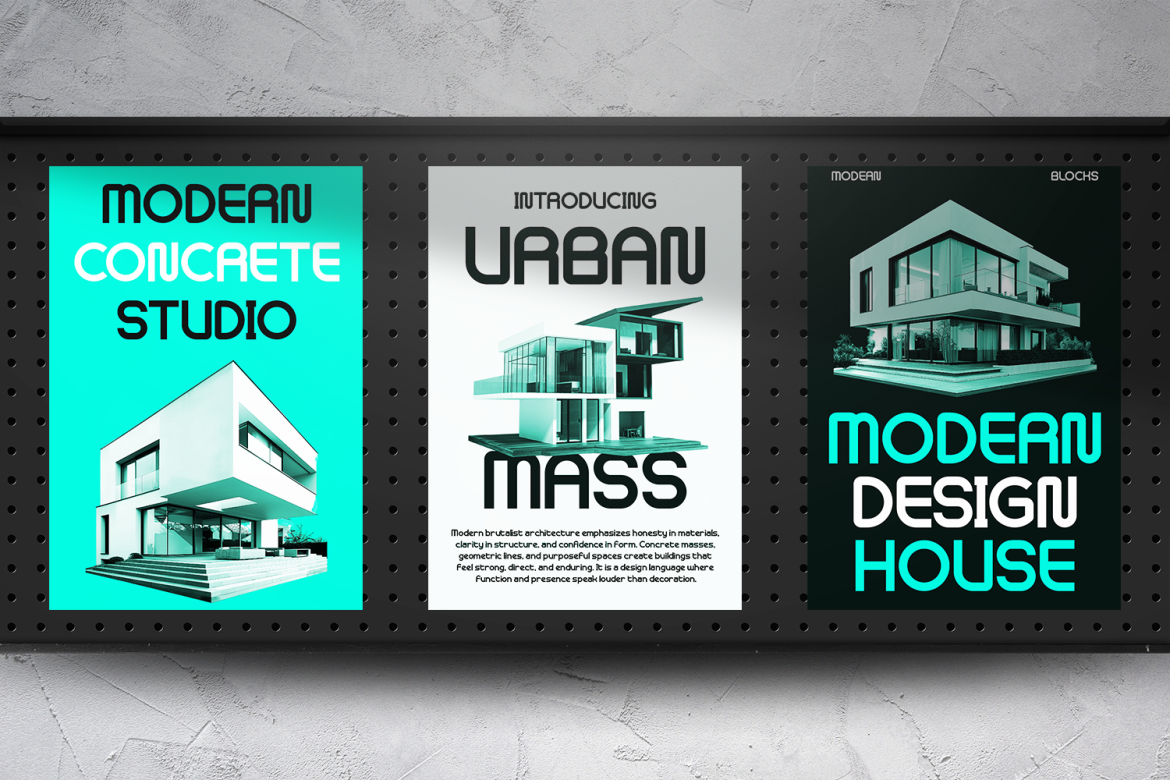
A modern display font designed for brands that want innovation and originality.
Pros
- Distinctive letterforms
- Modern aesthetic
- Strong branding potential
- Excellent visual presence
- Startup branding
- Creative agencies
- Technology companies
- Modern packaging
- Digital campaigns
Vexorium embraces contemporary experimental design while maintaining readability and professional versatility.
2. Wavetra Unique Experimental Font
A fluid and expressive typeface built around smooth curves and creative forms.
Pros
- Strong visual rhythm
- Balanced readability
- Unique character shapes
- Modern appearance
- Branding systems
- Packaging design
- Posters
- Editorial layouts
- Lifestyle brands
Wavetra demonstrates how experimental typography can remain approachable while delivering strong creative impact.
3. Velant Unique Experimental Font (Free)
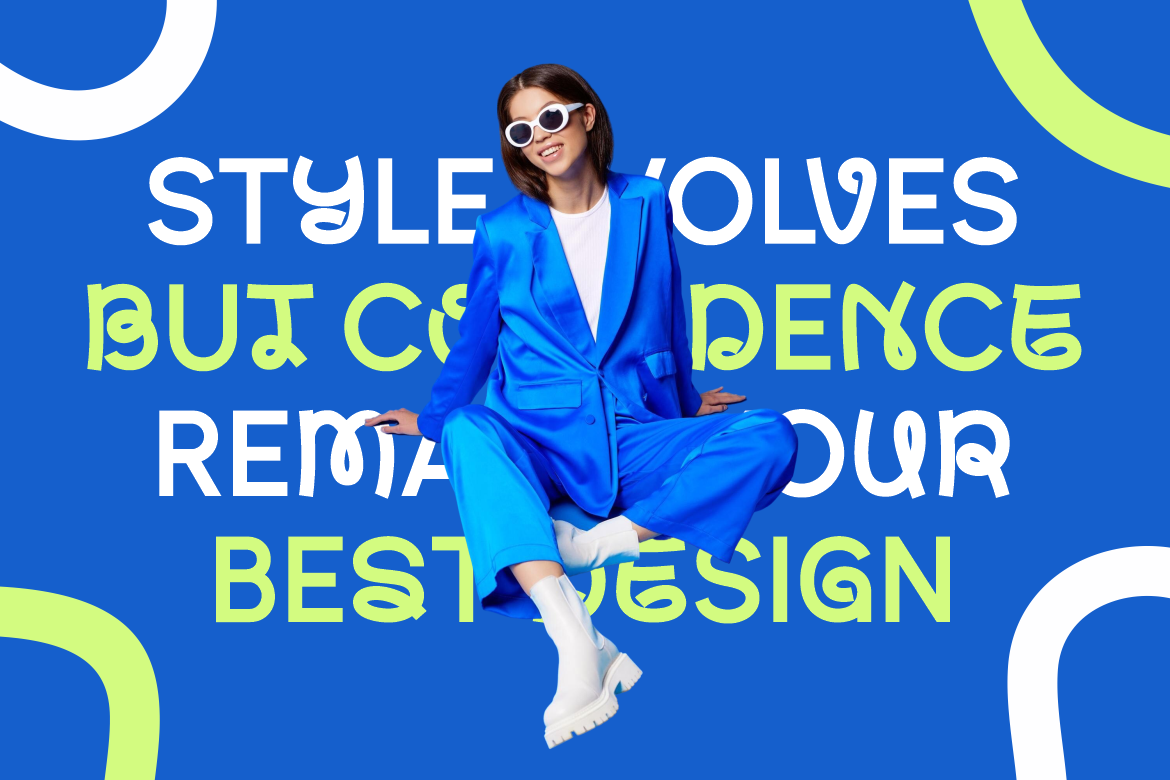
A free experimental font that combines modern simplicity with expressive details.
Pros
- Highly versatile
- Modern display style
- Excellent readability
- Startup branding
- Social media graphics
- Personal projects
- Portfolio design
- Modern logos
Velant offers a professional experimental aesthetic without sacrificing usability, making it one of the strongest free options available.
4. Logoza Logo Font
A logo-focused experimental typeface designed to create memorable brand identities.
Pros
- Strong logo performance
- Unique letter construction
- Excellent scalability
- Professional appearance
- Logo design
- Brand identities
- Corporate branding
- Product labels
- Visual systems
5. Cyber Aliens Futuristic Sci-Fi Font
A futuristic font inspired by technology, digital culture, and science fiction aesthetics.
Pros
- Futuristic personality
- Strong visual impact
- Unique sci-fi character
- Excellent display font
- Gaming brands
- Tech startups
- AI projects
- Entertainment media
- Digital products
6. Retrovia Memories Abstract Psychedelic Font
A creative display font inspired by psychedelic visual culture and retro experimentation.
Pros
- Artistic personality
- Distinctive curves
- Vintage-inspired energy
- High memorability
- Music branding
- Posters
- Festival graphics
- Editorial design
- Creative campaigns
7. Liquid Mirage Psychedelic Style Font
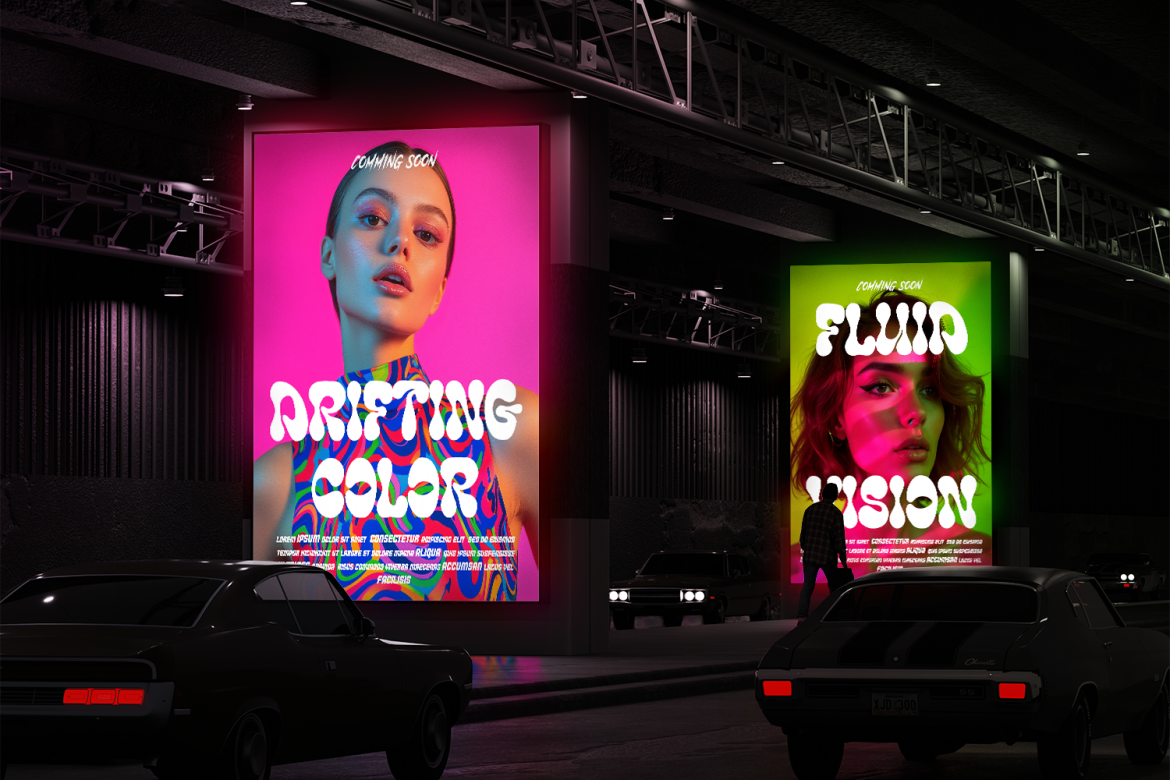
An experimental typeface featuring fluid, organic, and visually dynamic forms.
Pros
- Highly expressive
- Artistic flexibility
- Eye-catching appearance
- Strong creative identity
- Album covers
- Fashion campaigns
- Posters
- Art projects
- Event branding
8. Urban Latte Experimental Branding Font
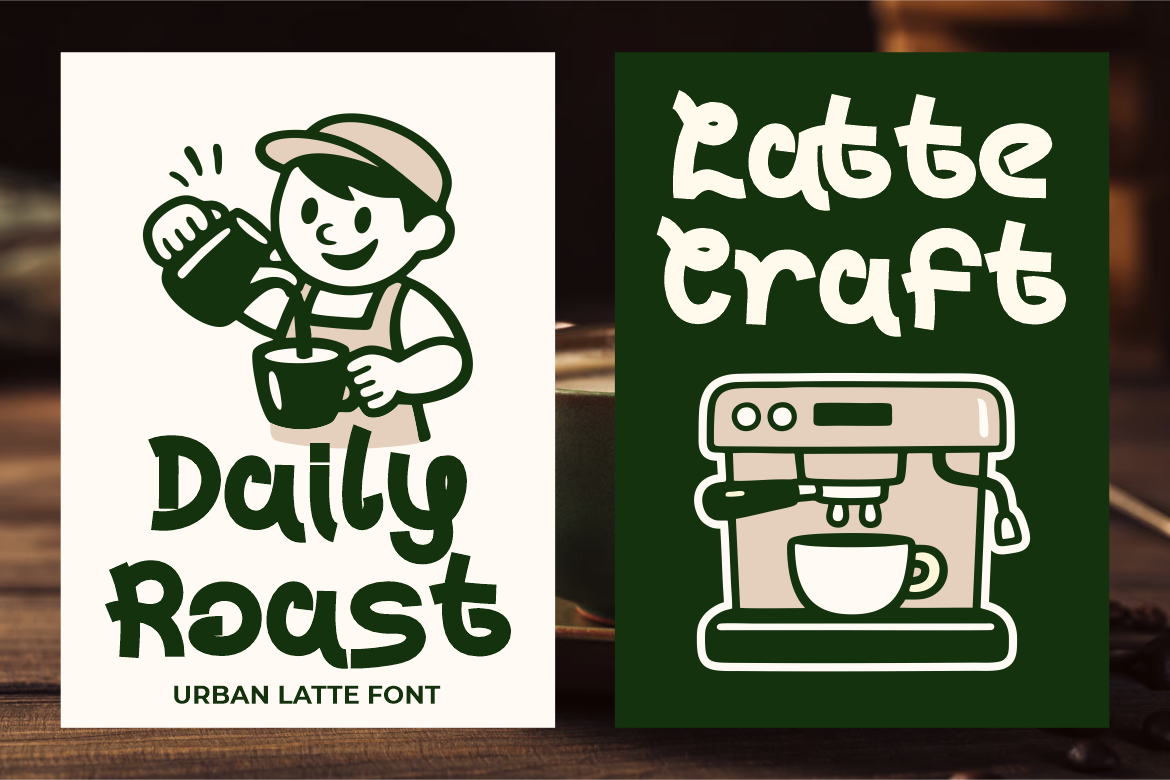
A handcrafted experimental font with a playful urban personality.
Pros
- Friendly character
- Strong brand appeal
- Excellent readability
- Handcrafted feel
- Café branding
- Food packaging
- Lifestyle brands
- Local businesses
- Creative startups
The font combines experimental styling with approachable forms, making it ideal for modern consumer-facing brands.
9. Bruksy Bold Experimental Logo Font
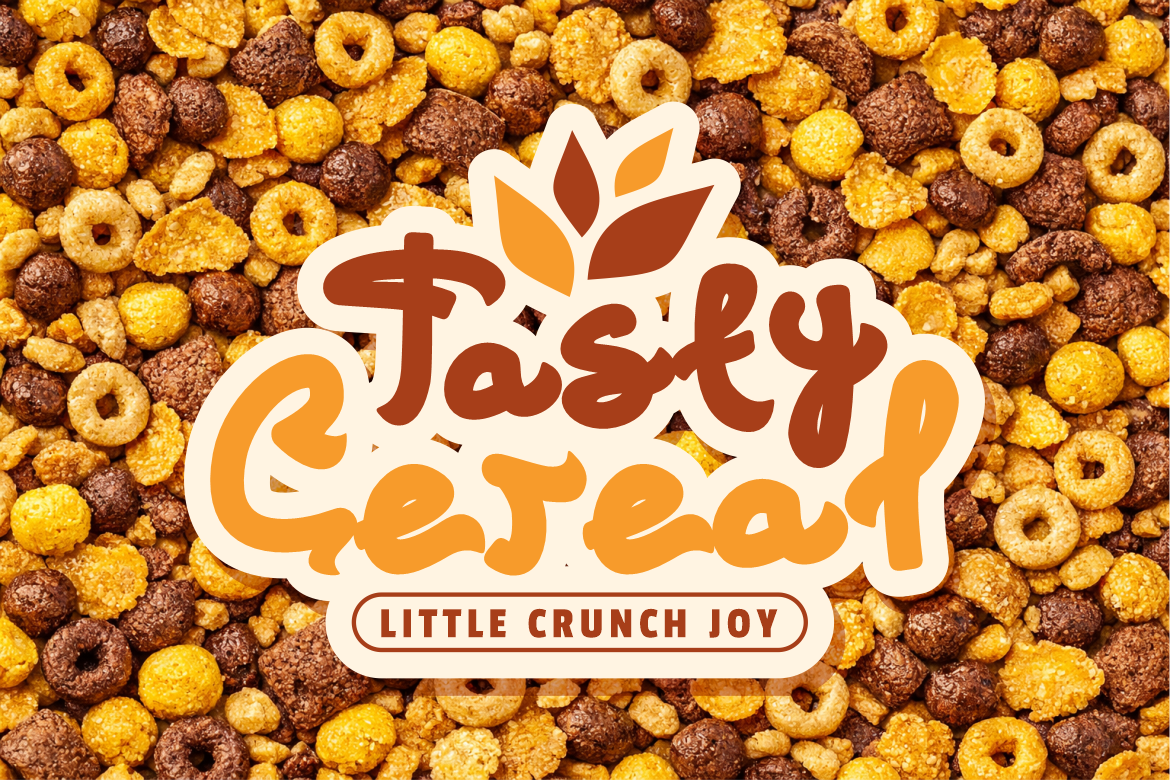
A bold display font designed for brands seeking maximum visibility.
Pros
- Strong visual impact
- Excellent headline performance
- Memorable personality
- High contrast appearance
- Logos
- Advertising
- Posters
- Product packaging
- Streetwear brands
Bruksy excels when used at large sizes where its experimental details can fully shine.
10. Modish Frame Contemporary Font
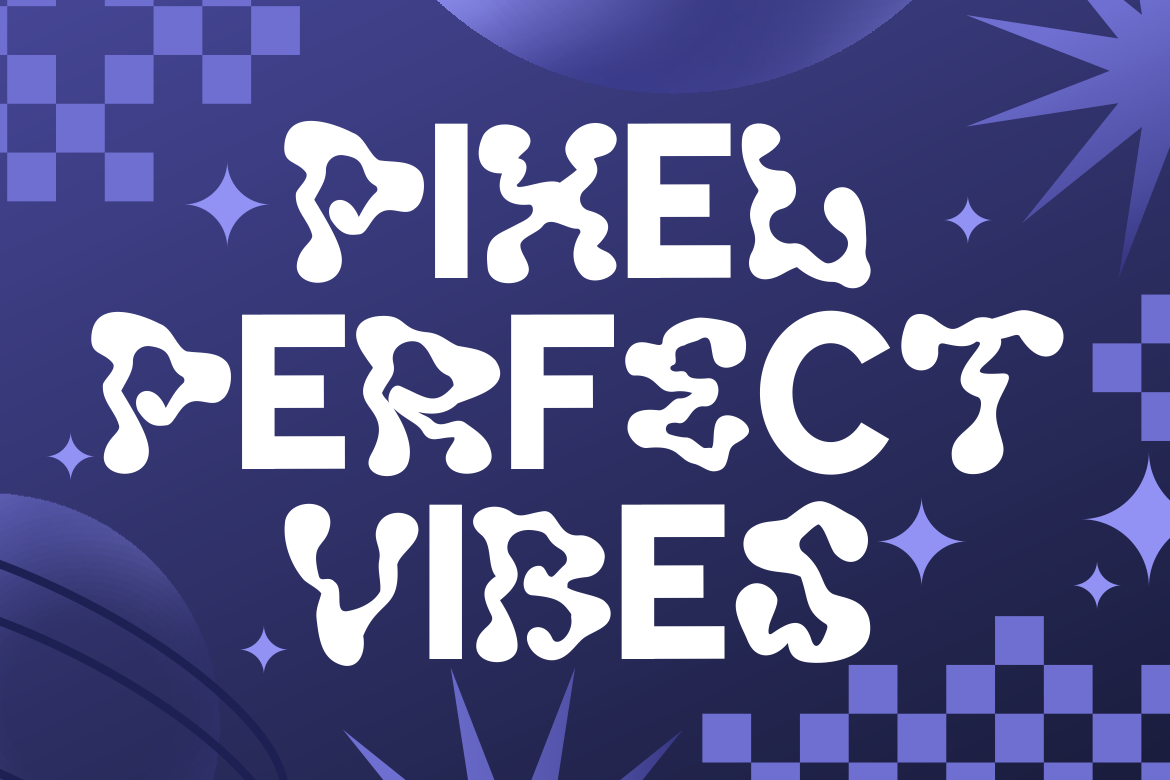
A contemporary display font blending modern elegance with experimental structure.
Pros
- Premium appearance
- Sophisticated personality
- Modern construction
- Strong versatility
- Luxury branding
- Editorial design
- Fashion labels
- Premium packaging
- Creative agencies
Comparison
| Font | Style | Personality | Best Industry |
|---|---|---|---|
| Vexorium | Experimental Display | Innovative | Startups & Branding |
| Wavetra | Creative Display | Modern | Lifestyle & Packaging |
| Velant | Experimental Sans | Versatile | General Branding |
| Logoza | Logo Font | Professional | Brand Identity |
| Cyber Aliens | Futuristic | Tech-Oriented | Gaming & Technology |
| Retrovia Memories | Psychedelic | Artistic | Music & Events |
| Liquid Mirage | Organic Experimental | Creative | Fashion & Art |
| Urban Latte | Handcrafted Experimental | Friendly | Food & Lifestyle |
| Bruksy | Bold Display | Strong | Advertising |
| Modish Frame | Contemporary Display | Premium | Luxury Branding |
Best Overall Picks
If You Want Best for Branding
- Vexorium
- Logoza
- Velant
This recommend Best for Technology Projects
- Cyber Aliens
- Vexorium
You Can Use for Creative Campaigns
- Wavetra
- Liquid Mirage
- Retrovia Memories
Best for Food & Lifestyle Brands
- Urban Latte
- Wavetra
Best Free Experimental Font
- Velant
Common Mistake
Many designers misuse experimental fonts because they focus entirely on uniqueness.
Choosing Style Over Communication
Experimental fonts should strengthen the message, not overshadow it.
Using Experimental Fonts for Body Text
Most experimental fonts work best for:
- Headlines
- Logos
- Posters
- Packaging
- Campaign visuals
Combining Too Many Experimental Fonts
Using multiple unconventional typefaces often creates visual confusion.
Ignoring Brand Personality
A futuristic font may not suit a heritage brand, while a psychedelic font may not fit a technology company.
Following Trends Without Strategy
Typography should support business goals rather than simply look fashionable.
The strongest experimental designs balance originality with communication and usability.
Conclusion
Experimental typography continues to redefine how brands communicate visually. By challenging traditional design rules, experimental fonts help businesses create stronger identities, capture attention, and express unique personalities.
Whether you’re building a technology startup, launching a creative agency, designing packaging, or refreshing a brand identity, the right experimental font can become one of your most powerful visual assets.
From the futuristic energy of Cyber Aliens and Vexorium to the artistic expression of Liquid Mirage and Retrovia Memories, these fonts demonstrate how typography can go beyond communication and become a form of visual storytelling.